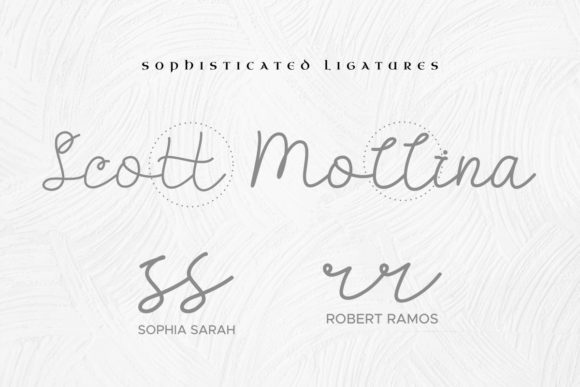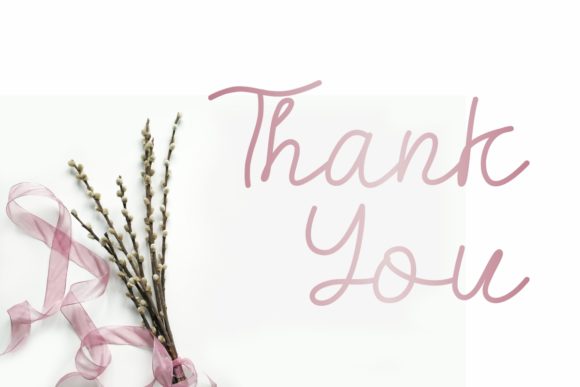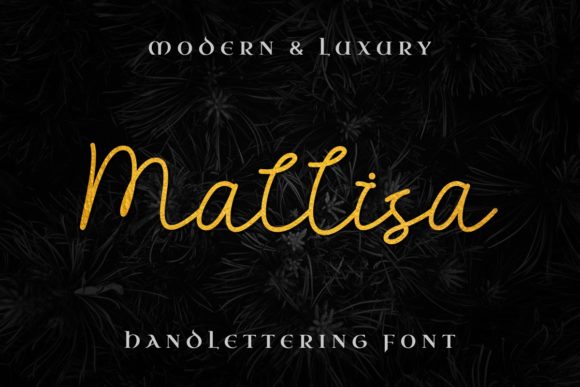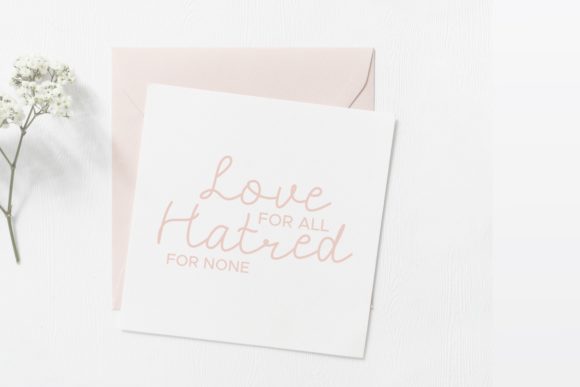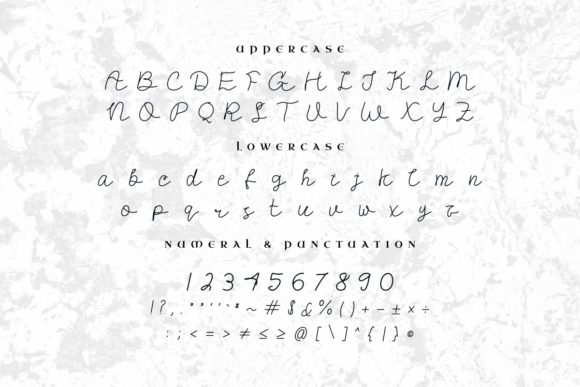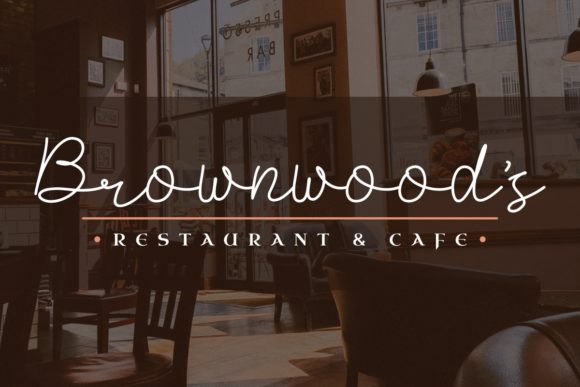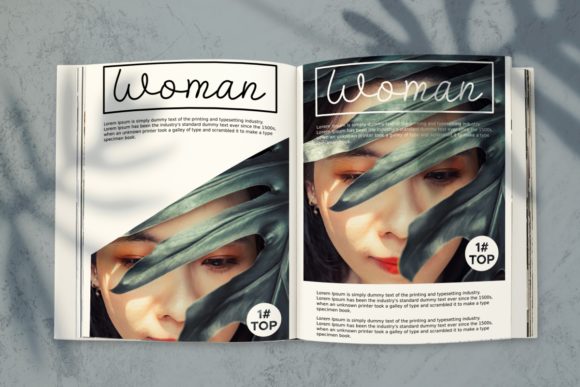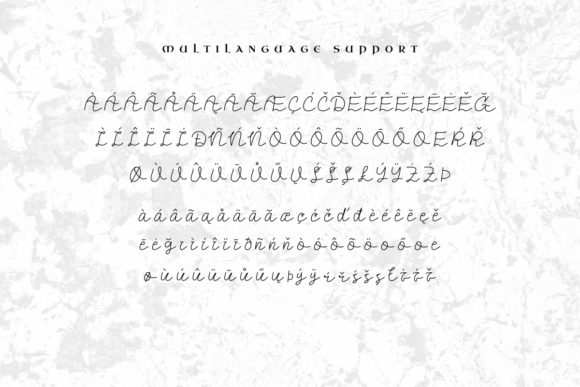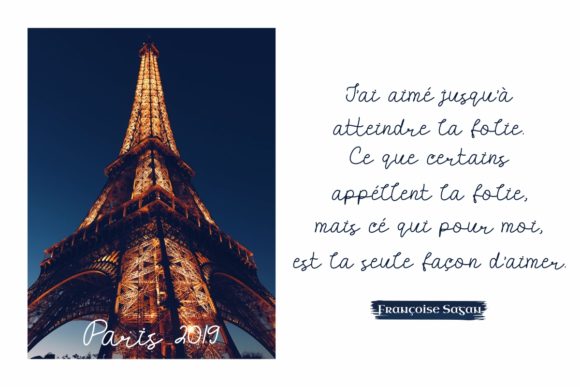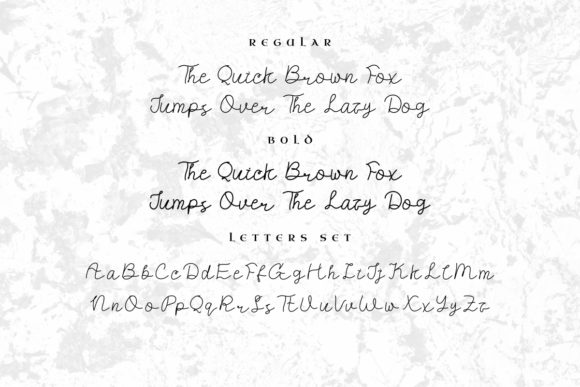
Mallisa Font
About Mallisa Font
Mallisa is a thinline, handwritten font that exudes casual elegance and sophistication – it is the perfect match for a wide range of designs from greetings cards, to branding, to wedding invitations.